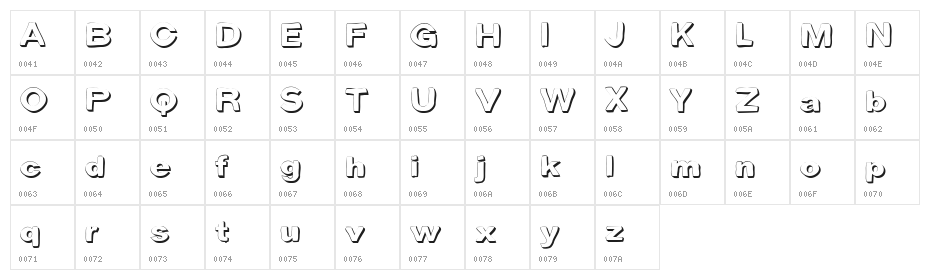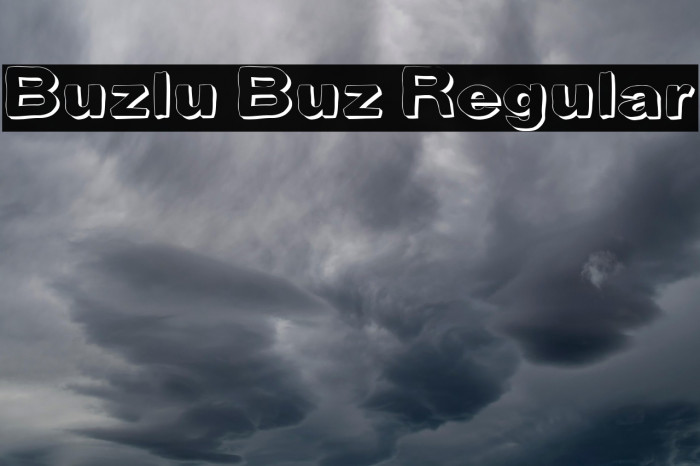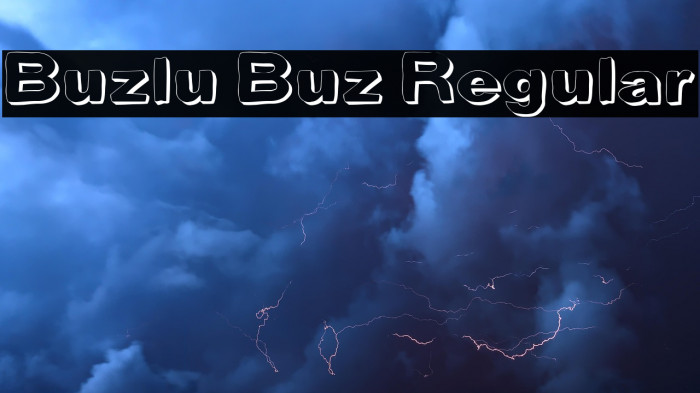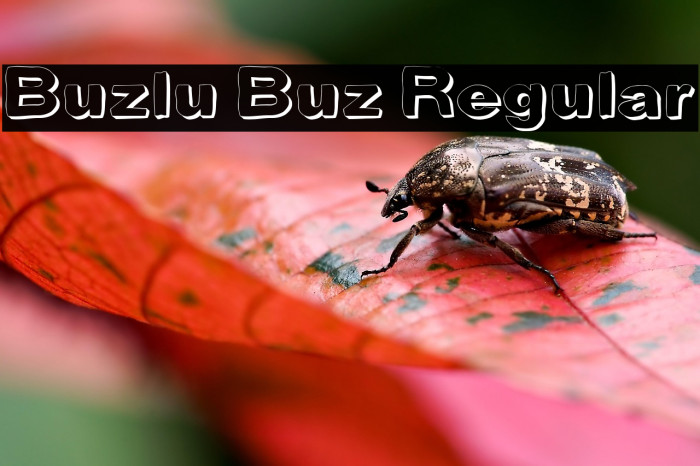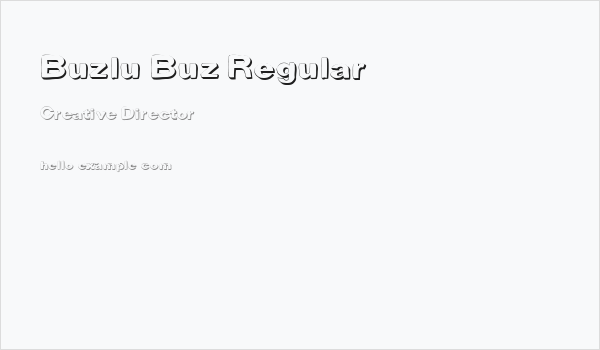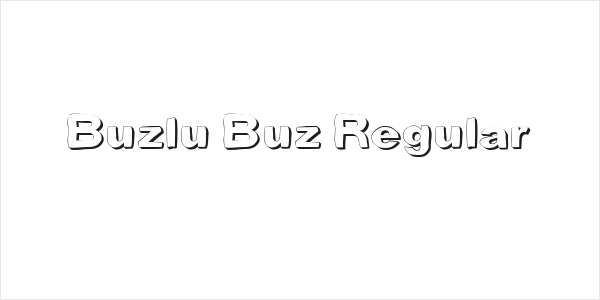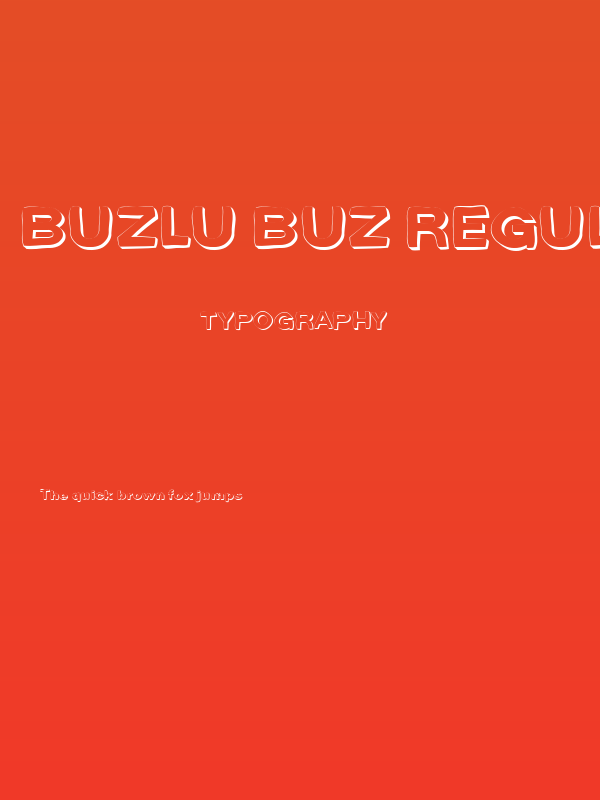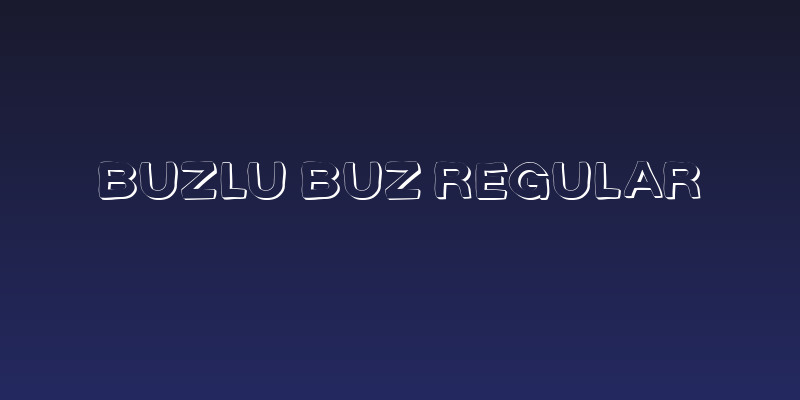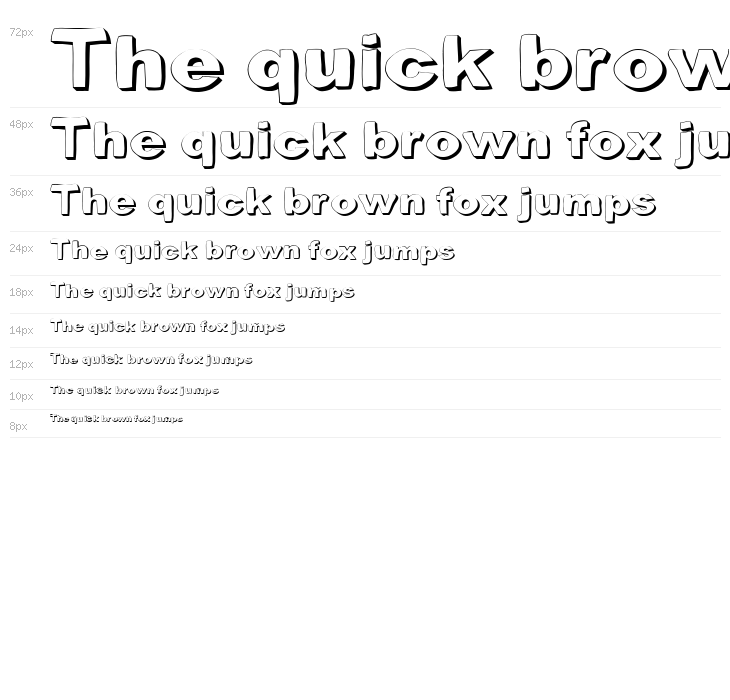
Buzlu Buz Regular Font
Buzlu Buz Regular Description
This font features a bold, playful style with a three-dimensional effect that gives it a unique, eye-catching appearance. The letters are outlined with a shadow that creates a sense of depth, making them stand out prominently. The design is consistent across both uppercase and lowercase letters, as well as numbers and special characters. The font has a modern and fun aesthetic, suitable for creative projects that require a distinctive and lively look. Its boldness and shadow effect make it ideal for headlines or titles where attention-grabbing text is needed.
| Proposed Projects | Ideal for posters, children's books, playful branding, and creative advertisements. |